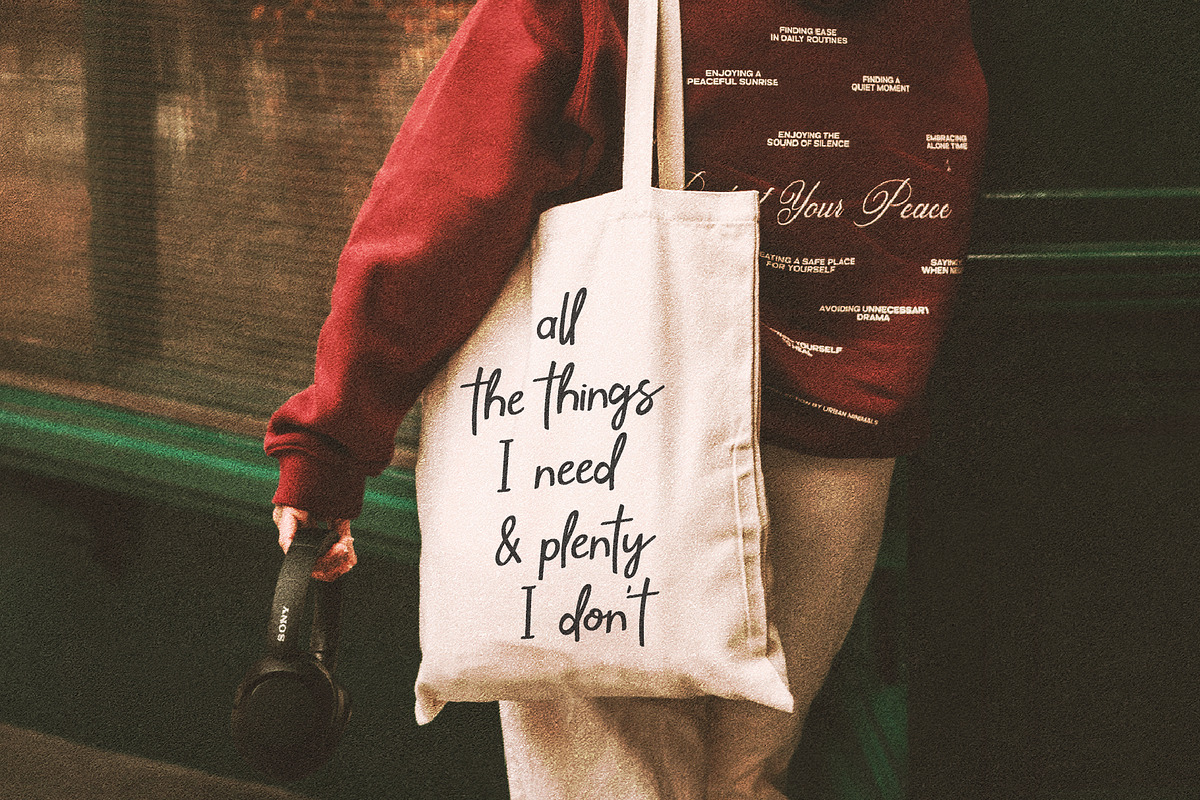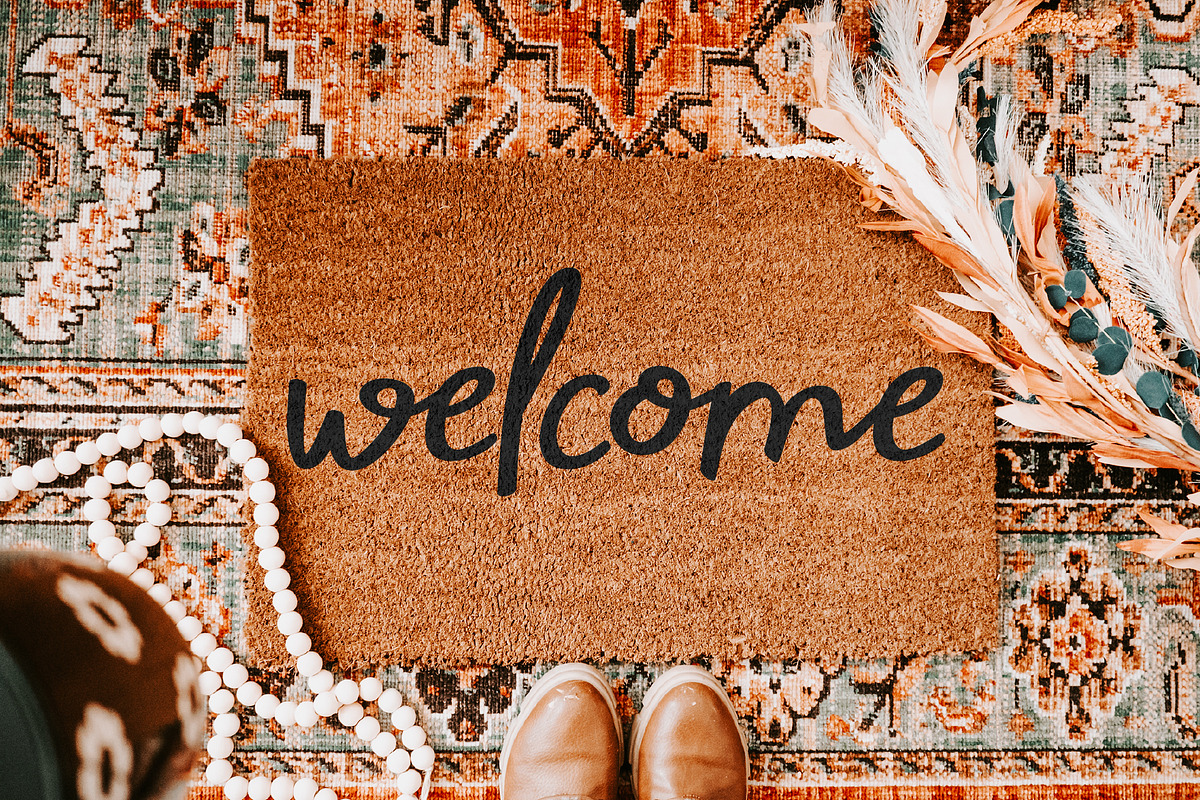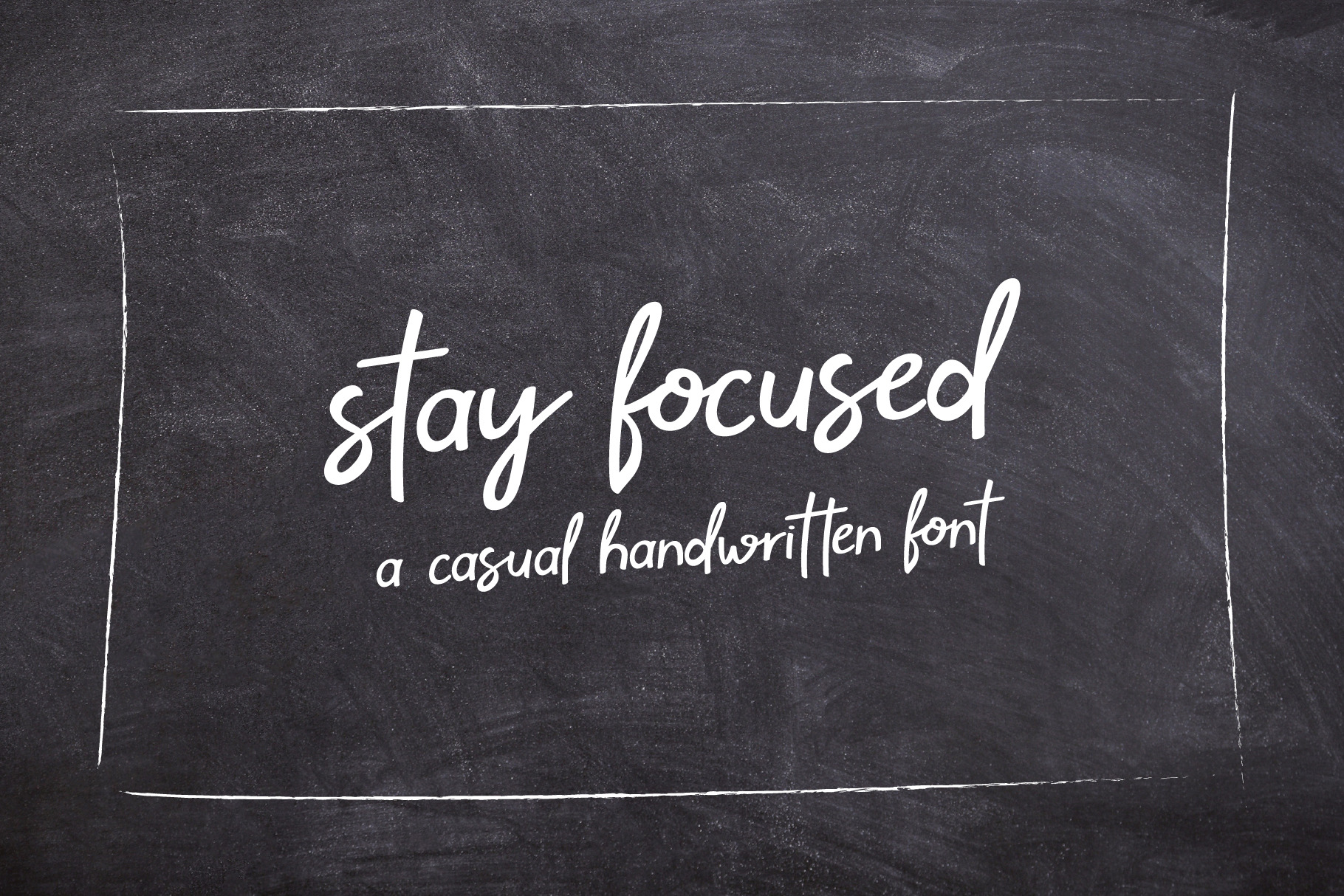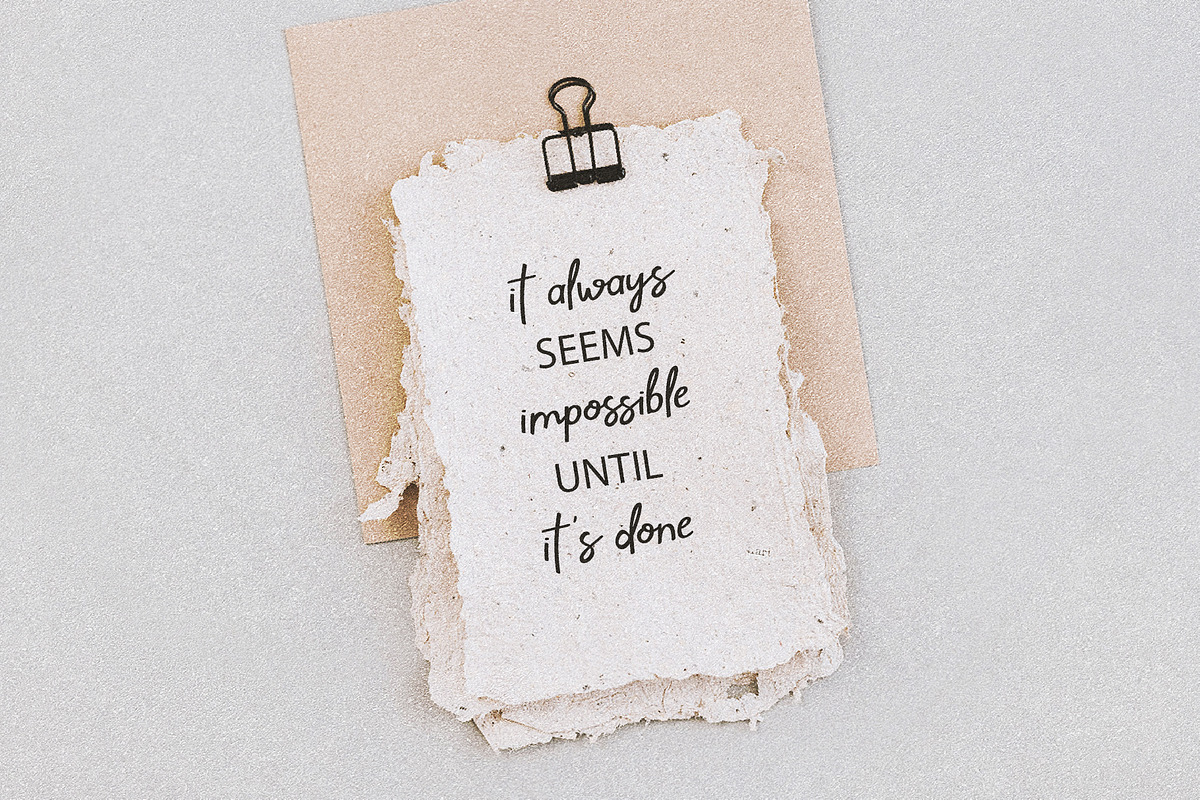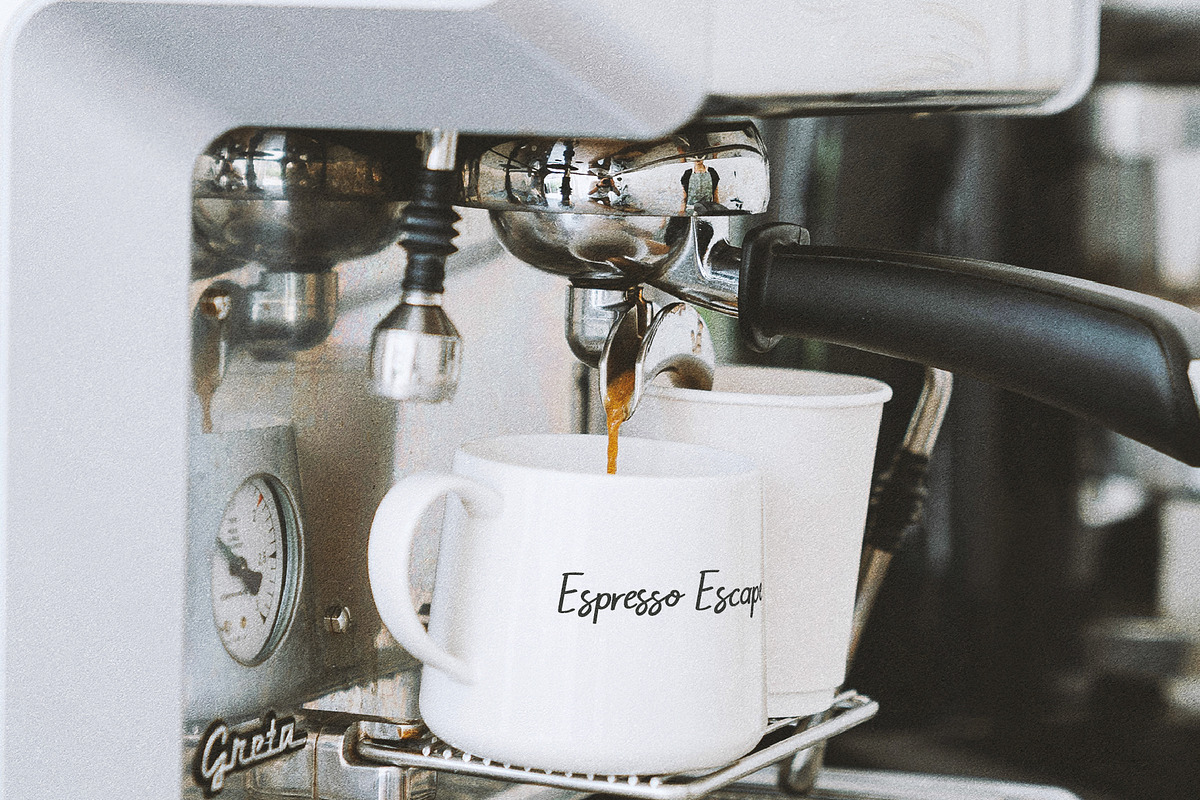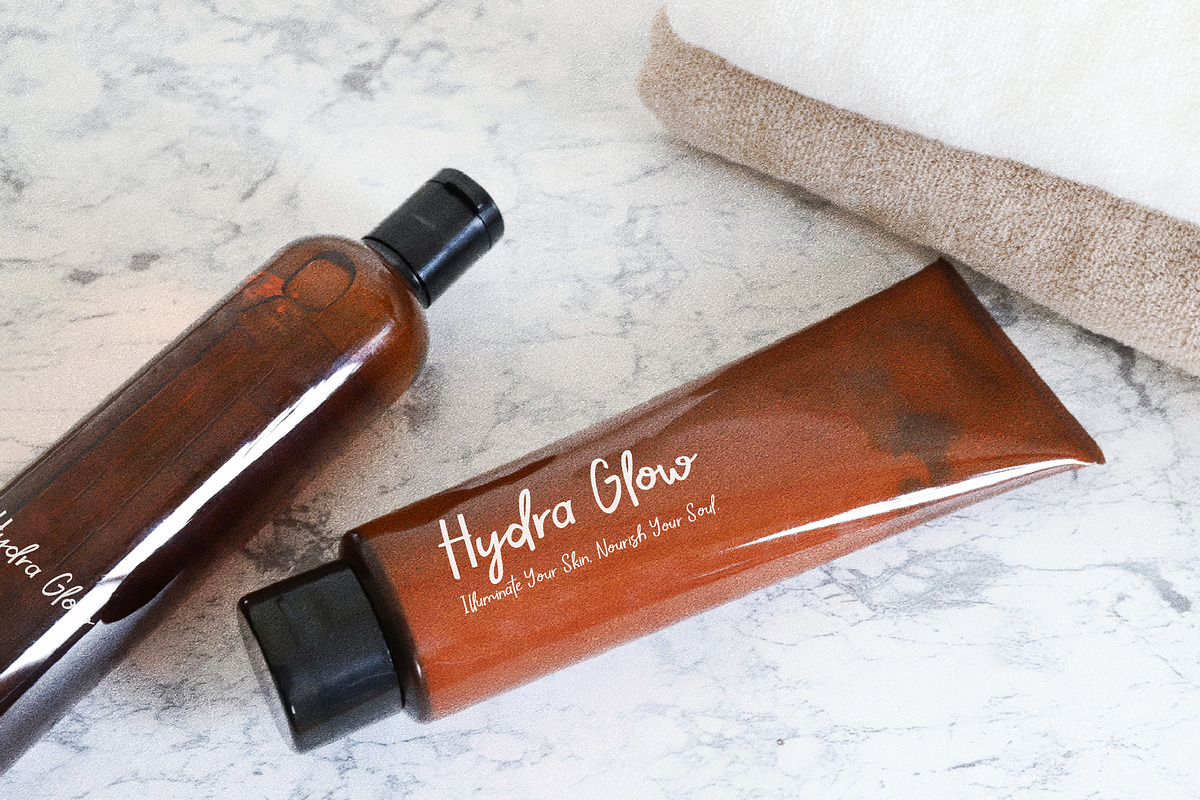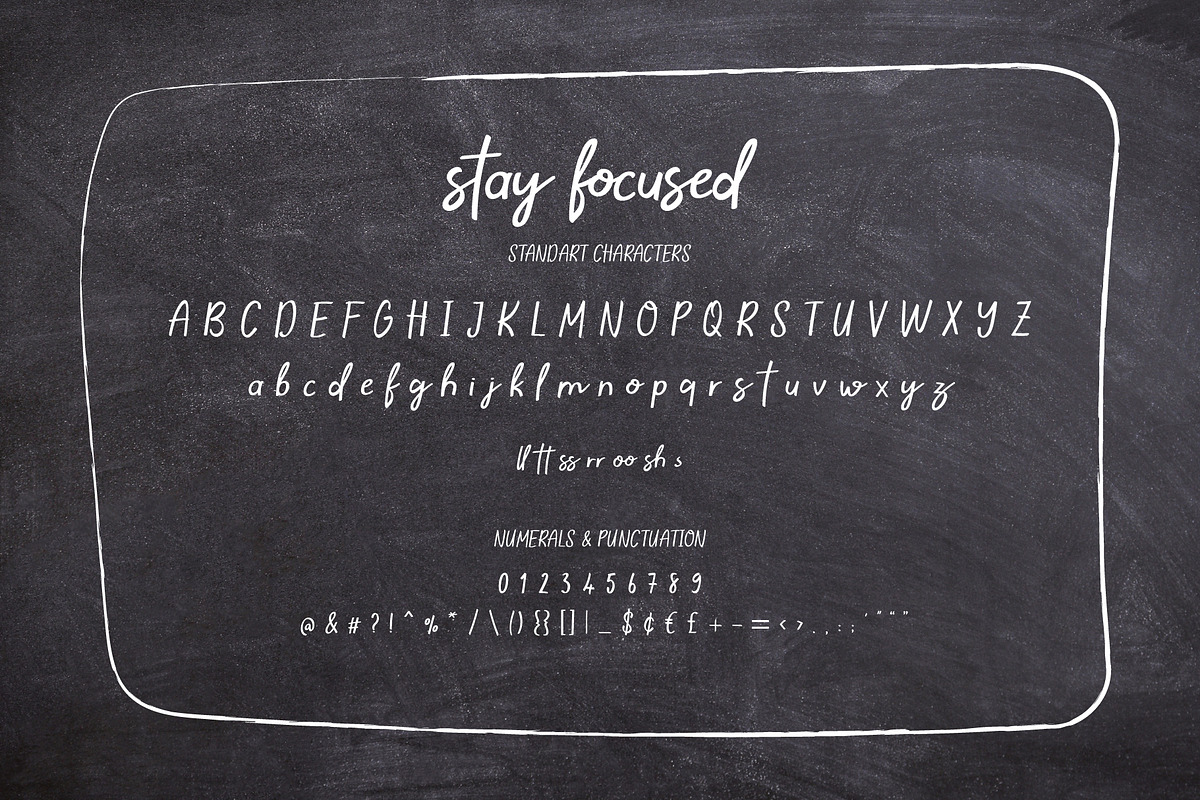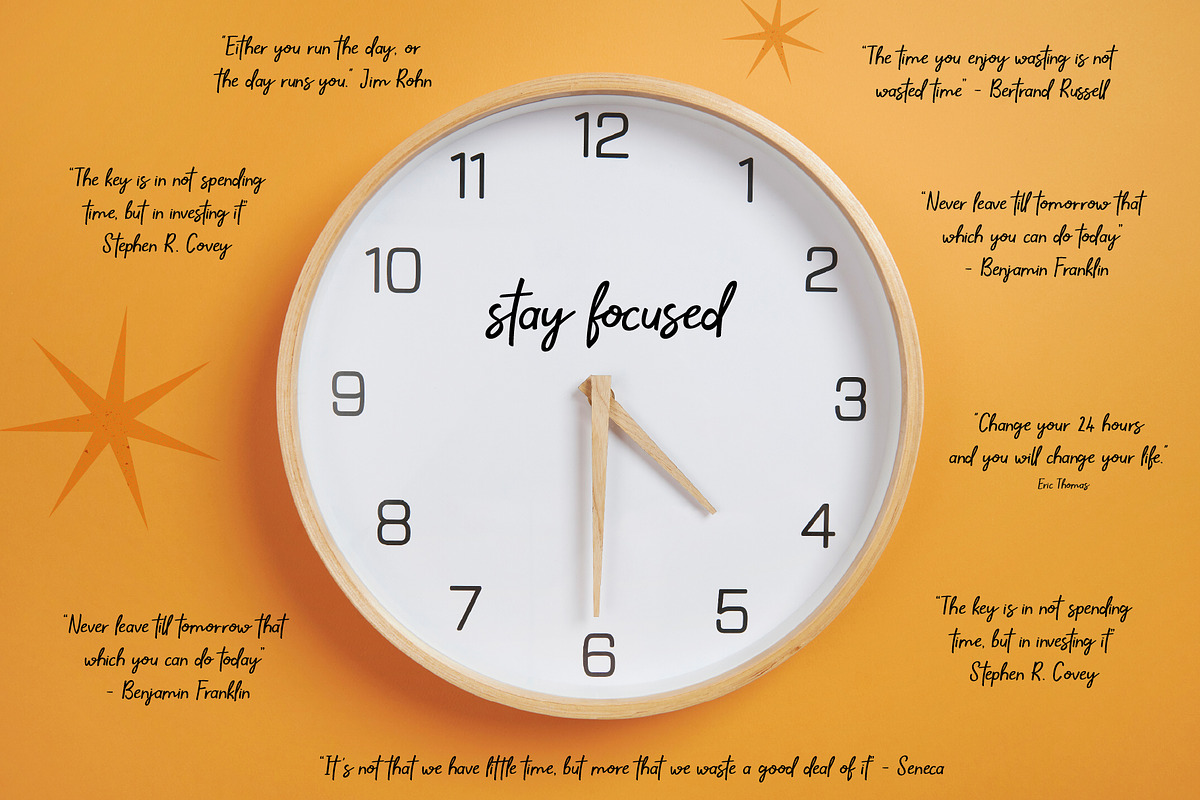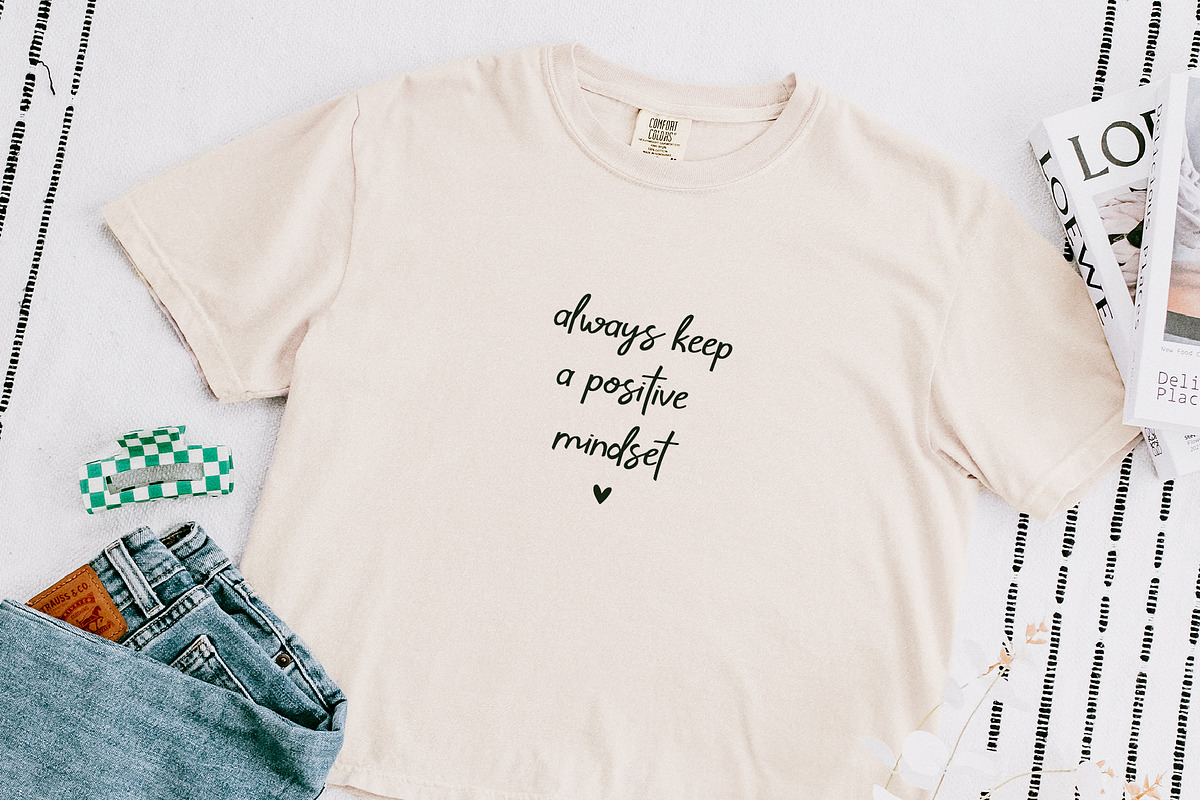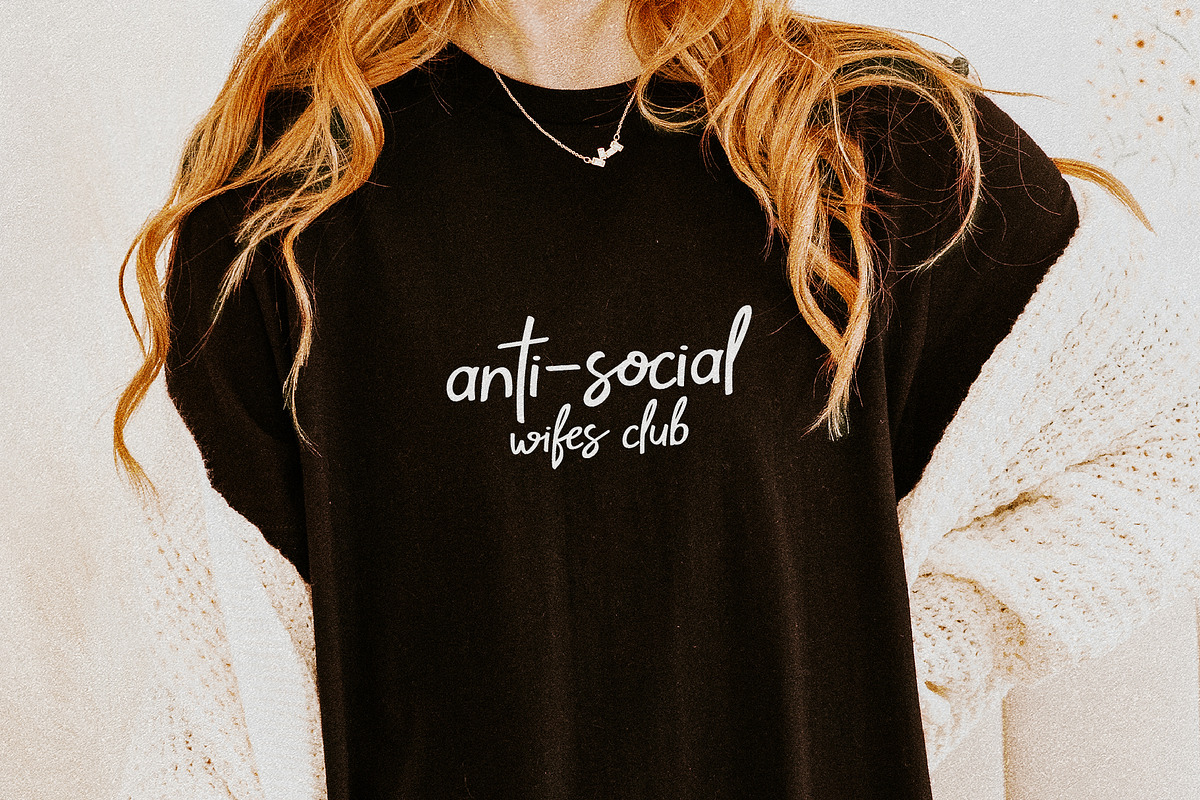
Stay Focused Casual Handwritten Font
Say hello to Stay Focused, a casual handwritten font. It is great for craft projects, social media, greeting cards, logos, branding, printed goods or anything that requires a touch of personality.
FONT FEATURES
• Handwritten script
• Standard characters (lowercase, uppercase, numbers, punctuation)
• Opentype Ligatures